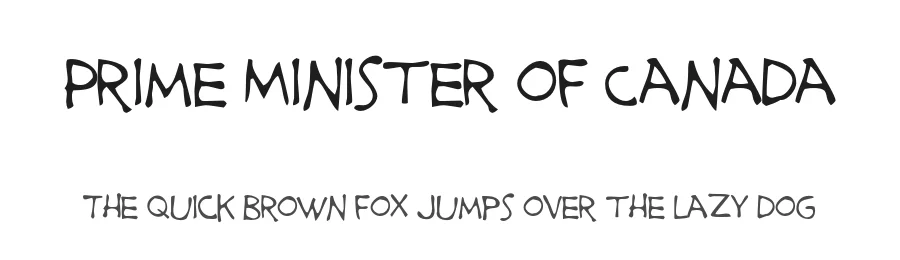
About Hambone Font
Hambone is a decorative font designed by BessAsher Rebel. It includes 108 glyphs, a regular weight, TTF (TrueType) format, and 107 languages. Hambone is free to download; check the license details on this page before commercial use. Decorative fonts like Hambone work best for logos, posters, packaging, and standout headlines.
| Designer | BessAsher Rebel |
Hambone Font is a decorative font that shines as a display or heading face. Pair it with a clean sans-serif or serif font for body text β the contrast creates a clear hierarchy while the two styles stay balanced and easy to read.